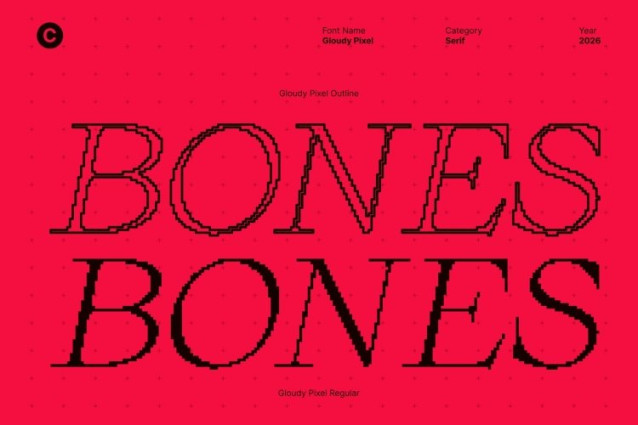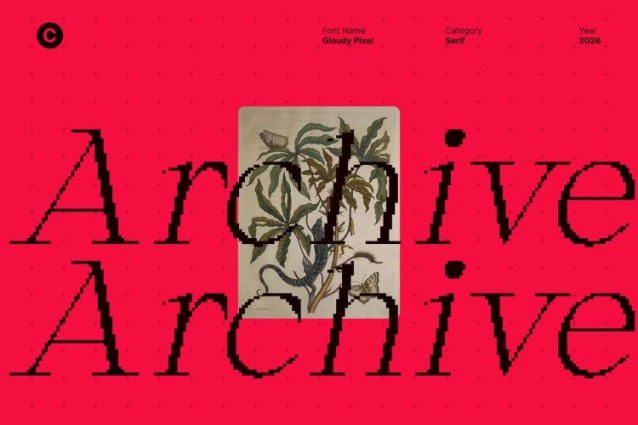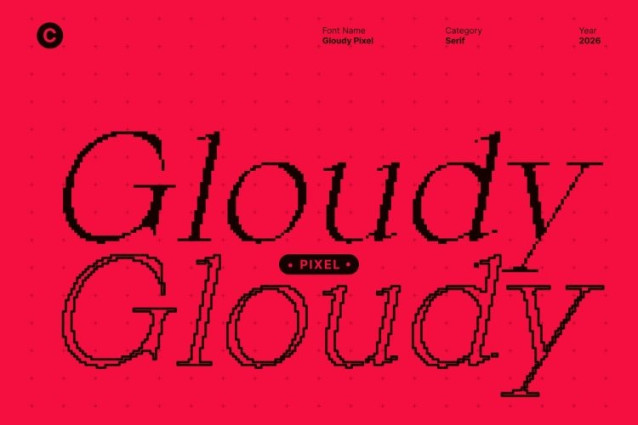
Gloudy Pixel Font
Gloudy Pixel Font This is a modern serif font that redefines elegance through a refined serif structure translated into a crisp pixel-based design. Each character exudes sophistication and clarity, combining classic serif principles with a contemporary bitmap aesthetic. This fusion makes it ideal for upscale displays and formal corporate settings with a distinctive digital edge.
Subtle Contrast for Refined Sophistication
Featuring moderate contrast adapted to a pixel grid, achieves a perfect balance between elegance and readability. The controlled variation in stroke thickness adds depth and visual interest, enhancing the font’s polished appearance while maintaining precision and consistency across digital and print applications.
Sharp Pixel Serifs for Lasting Impact
The sharp, angular serifs are carefully constructed with pixel precision, creating pointed terminals that command attention without overwhelming the design. These crisp details add refinement and authority, allowing the font to stand out confidently in headlines, logos, and premium layouts.
Versatile for Display and Formality
From high-end branding and editorial design to corporate documents and digital interfaces, adapts effortlessly to a wide range of design needs. Its elegant demeanor, subtle contrast, and sharp pixel serifs make it equally effective for captivating displays and conveying professionalism in formal, modern contexts.